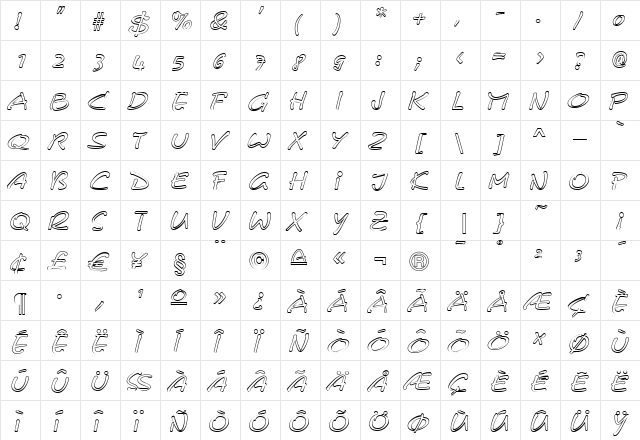
CerberixOutline Italic
Design Context for CerberixOutline Typeface
CerberixOutline is built around its visual character rather than neutral utility — its distinctive forms are designed to make an impression at display sizes. The dynamic lean of this cut emphasises speed and emphasis in any layout.
Font Pairing: Pair with a clean neutral sans-serif for body copy to let CerberixOutline's character lead without overwhelming the composition.
Pro Tip: Treat CerberixOutline as the centrepiece of your typographic hierarchy. One strong heading set in a decorative face can carry an entire layout.